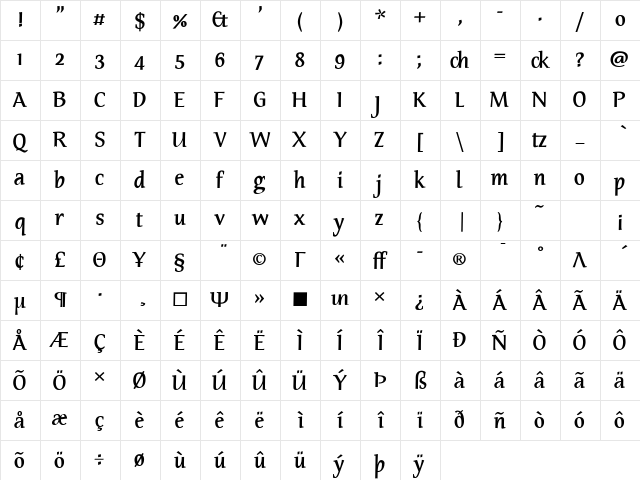
TarquiniusPlus DemiBold
Style: DemiBold
Foundry: Norbert Reiners and FSI. Published by FontShop International <  > FontFont release
Complete TarquiniusPlus DemiBold glyph index. Displaying only characters natively supported by TarquiniusPlus DemiBold font.
Design Context for TarquiniusPlus
TarquiniusPlus is a composed and adaptable typeface that performs quietly and consistently across a wide range of design contexts. Its bold stroke weight gives it real presence on the page.
Who designed the TarquiniusPlus DemiBold font?
This font was published by Norbert Reiners and FSI. Published by FontShop International &lt;  &gt; FontFont release. Check the technical specs section for copyright and designer details.